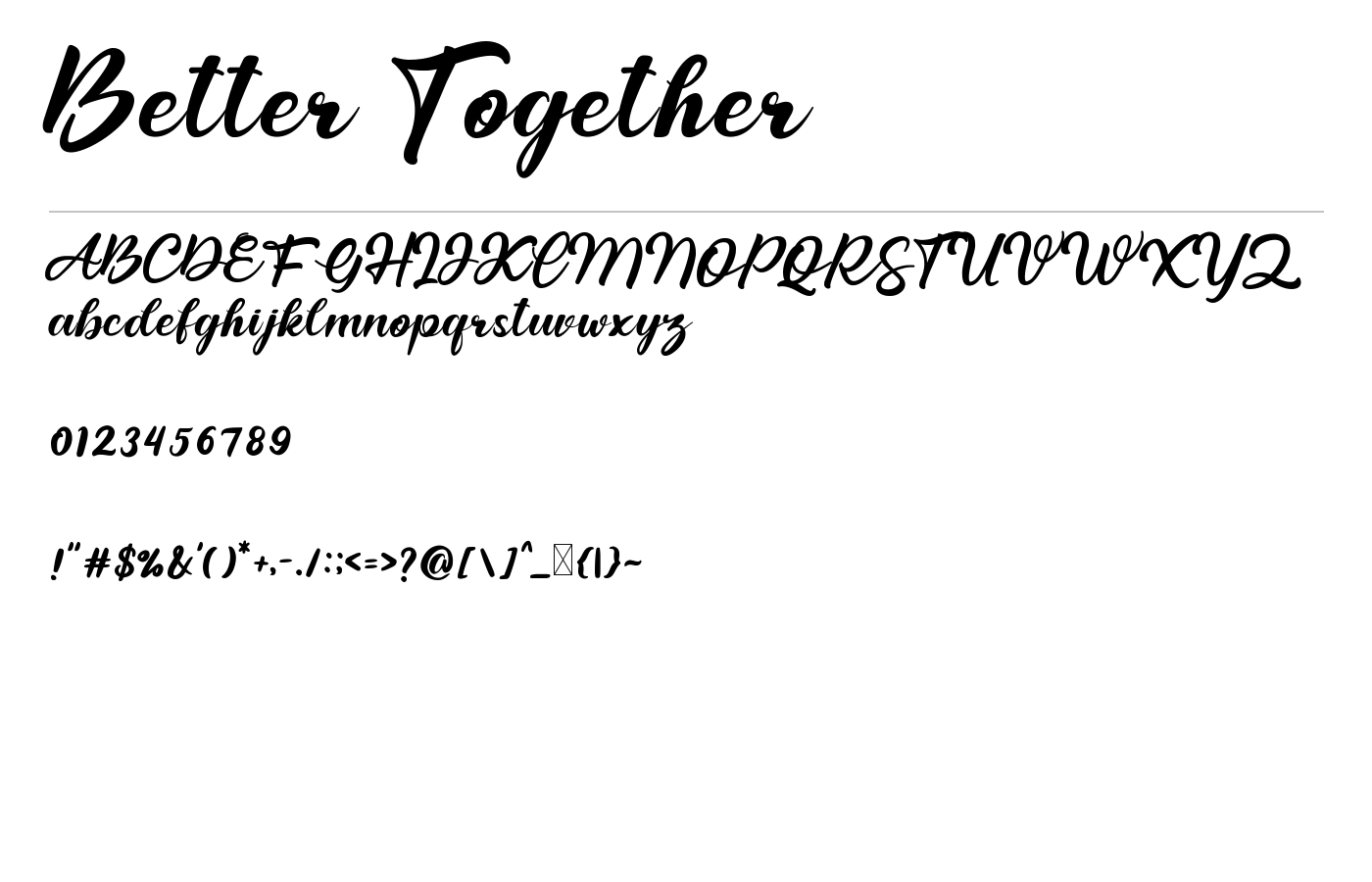
Better Together is a lively and elegant script font that features smooth, flowing strokes with a moderate contrast in weight, creating a stylish yet approachable feel. Its distinctive letterforms, including single-story characters and decorative swashes, make it perfect for branding, invitations, and headlines where a touch of warmth and personality is desired. This font excels in projects aiming for a friendly, modern, and creative vibe while maintaining readability and charm.
Better Together Font